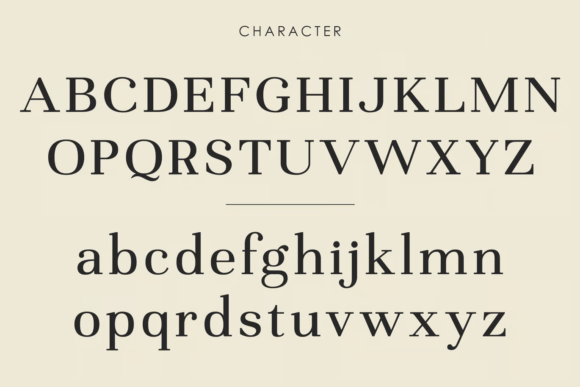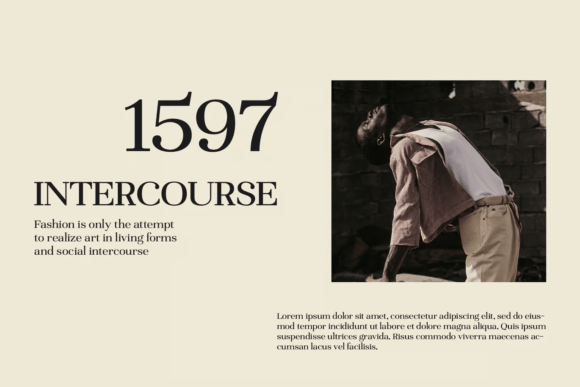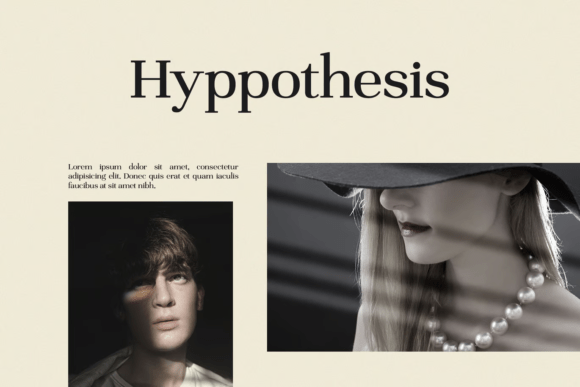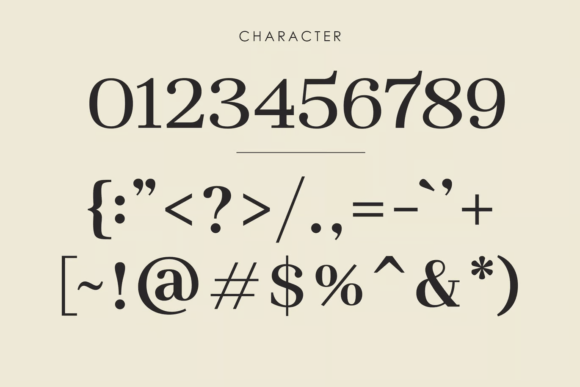
Crystal Bries Font
Crystal Bries – Elegant Display Serif FontCrystal Bries is a display serif font that blends timeless elegance with a modern touch. Its letterforms are bold yet graceful, bringing a luxurious and artistic feel to any design project.